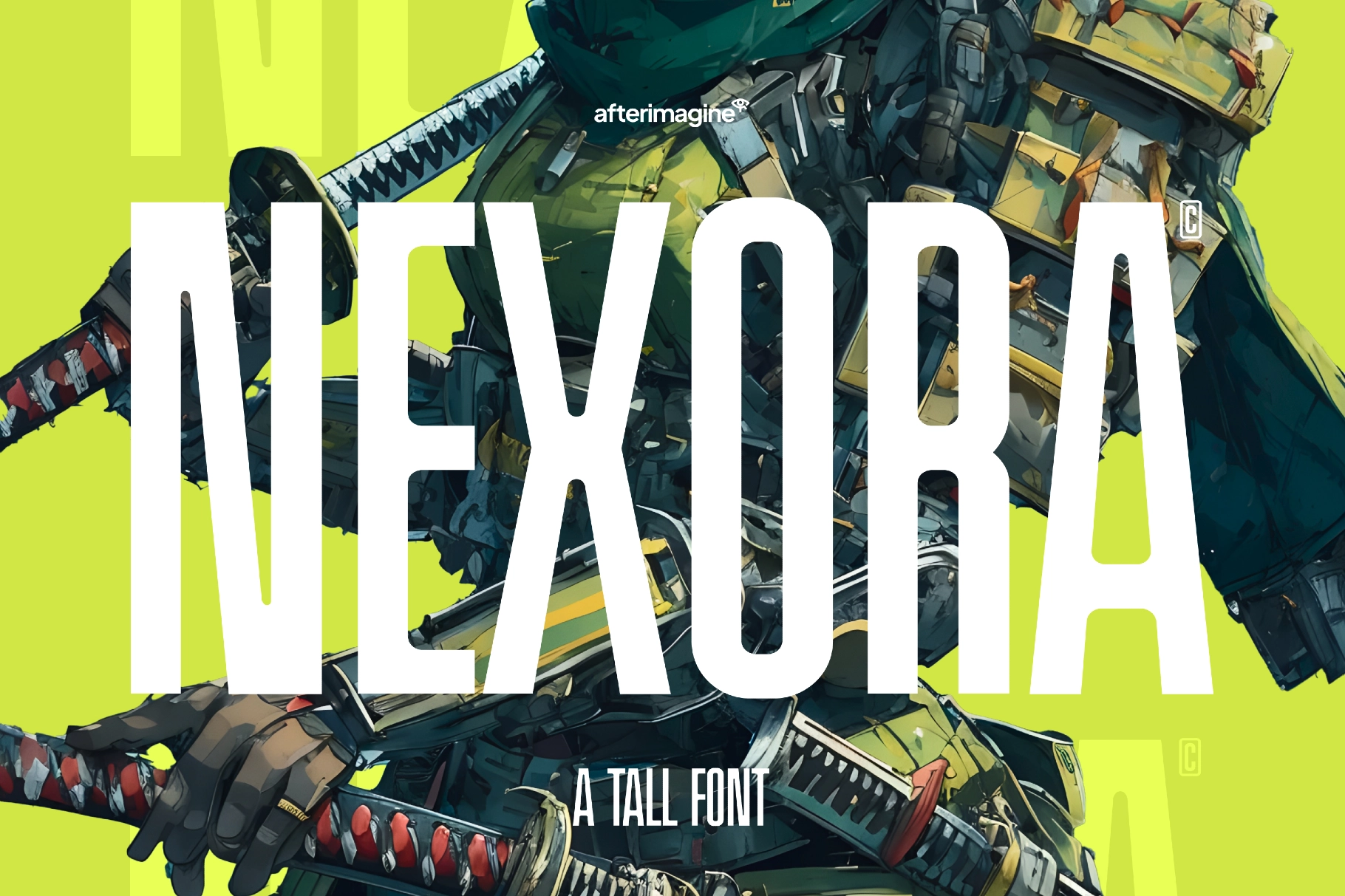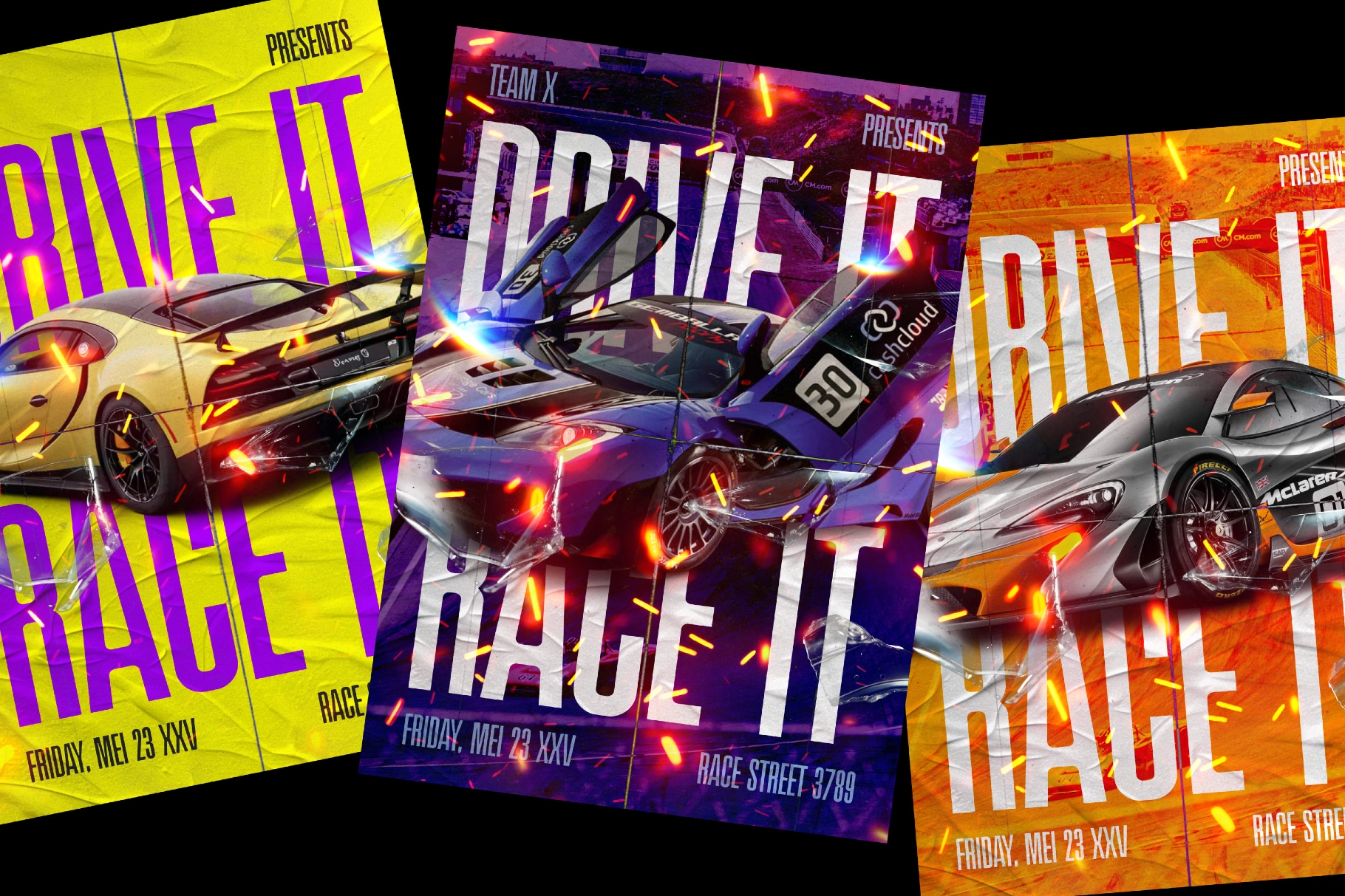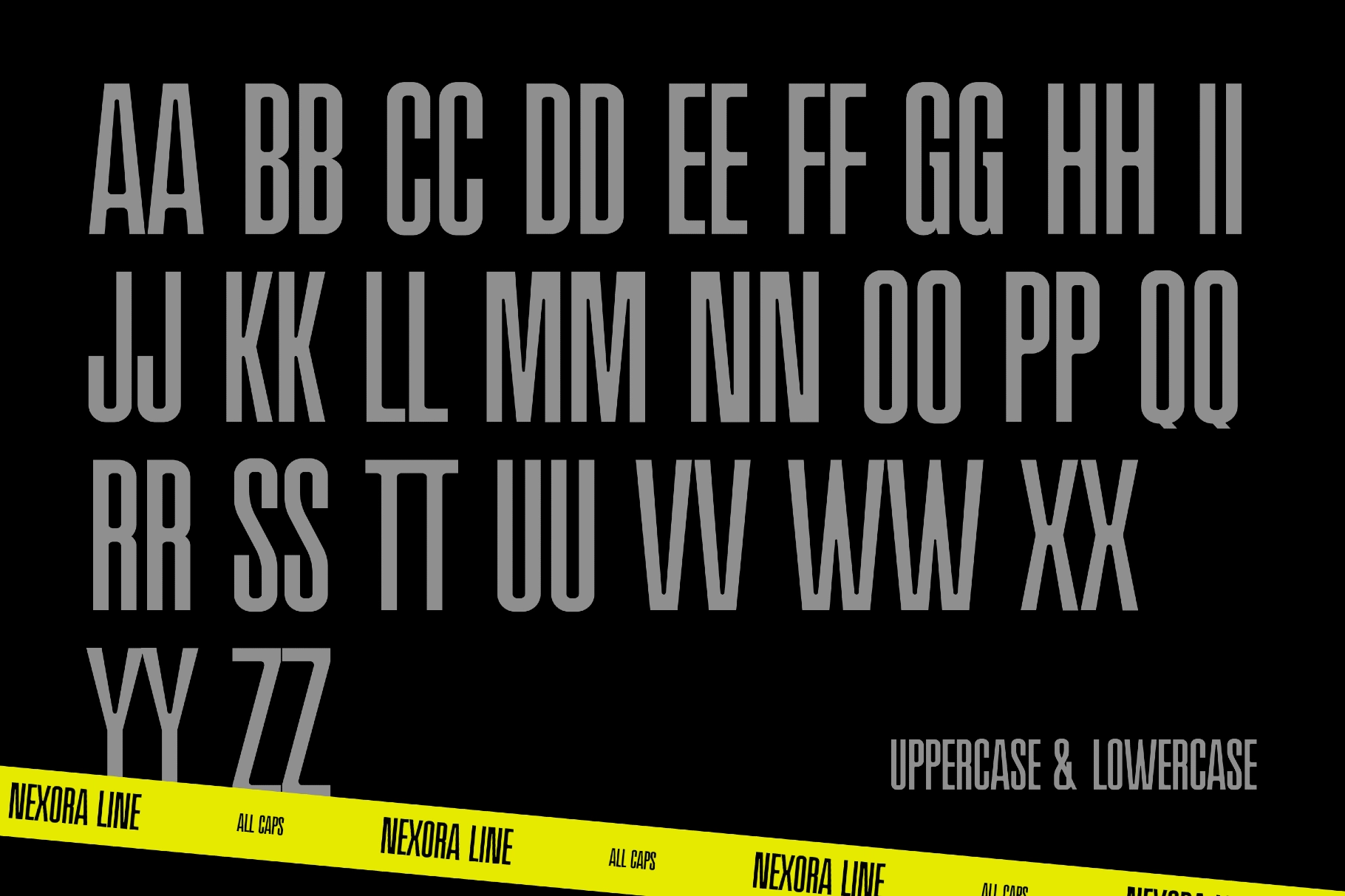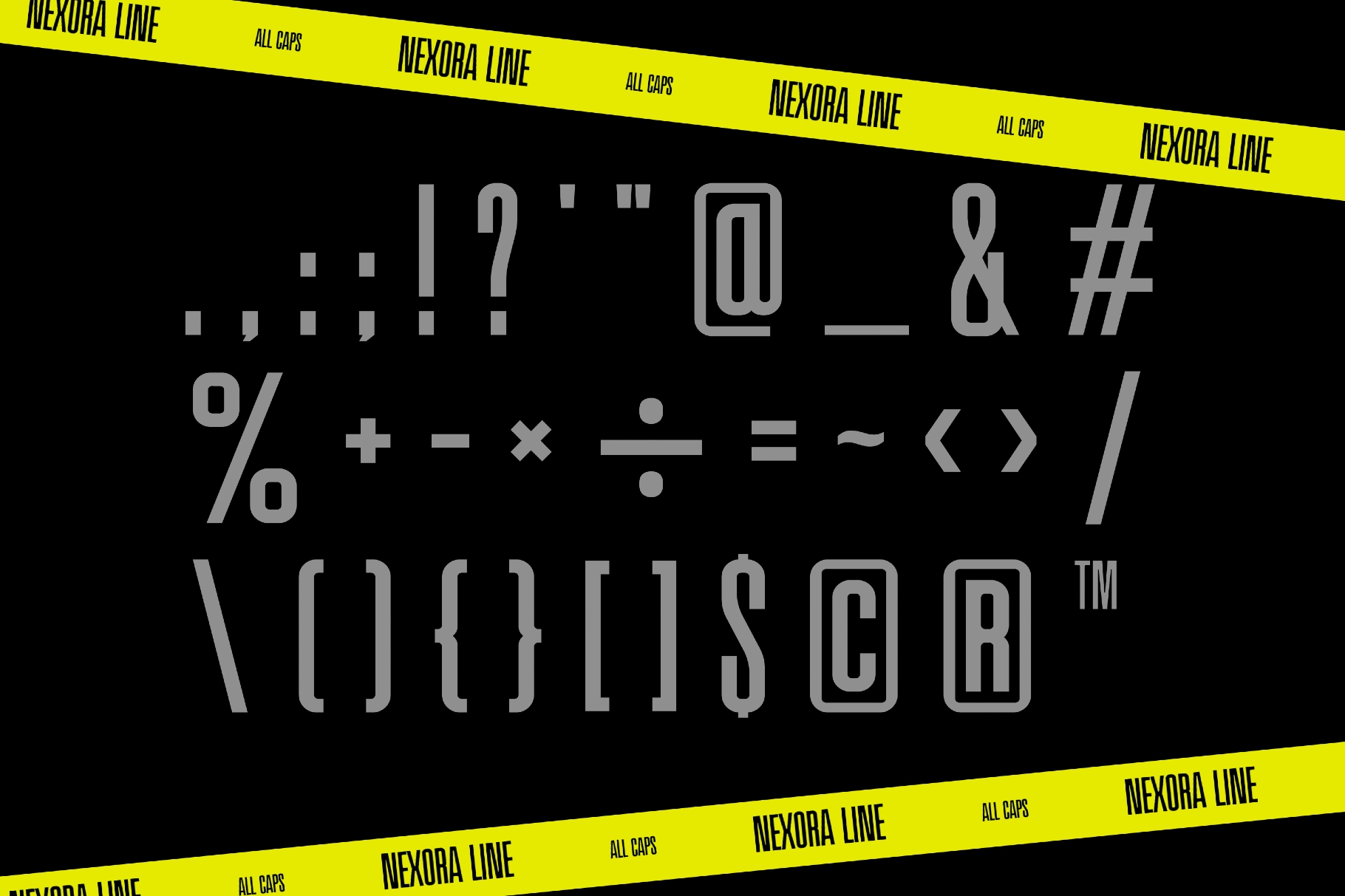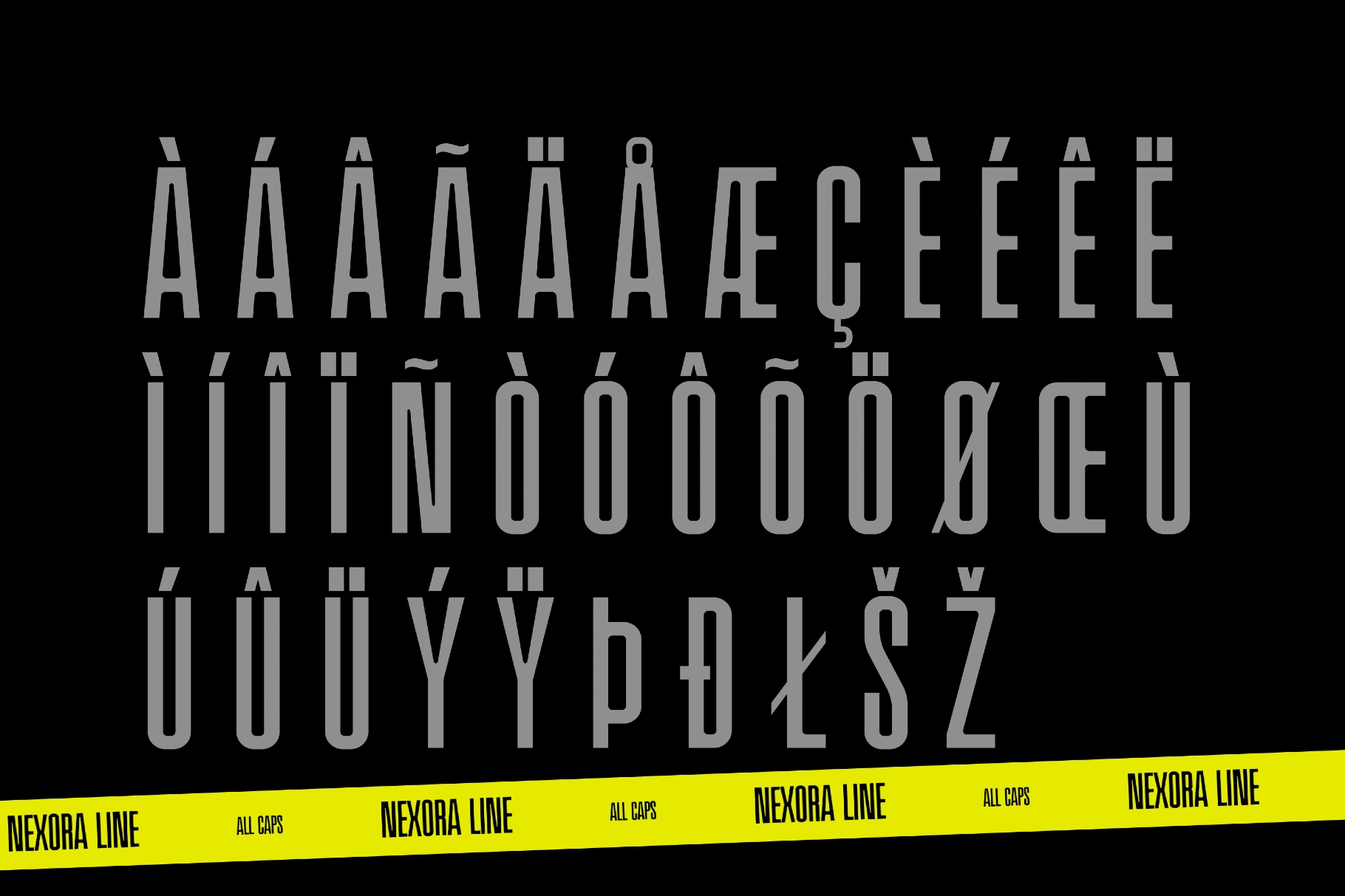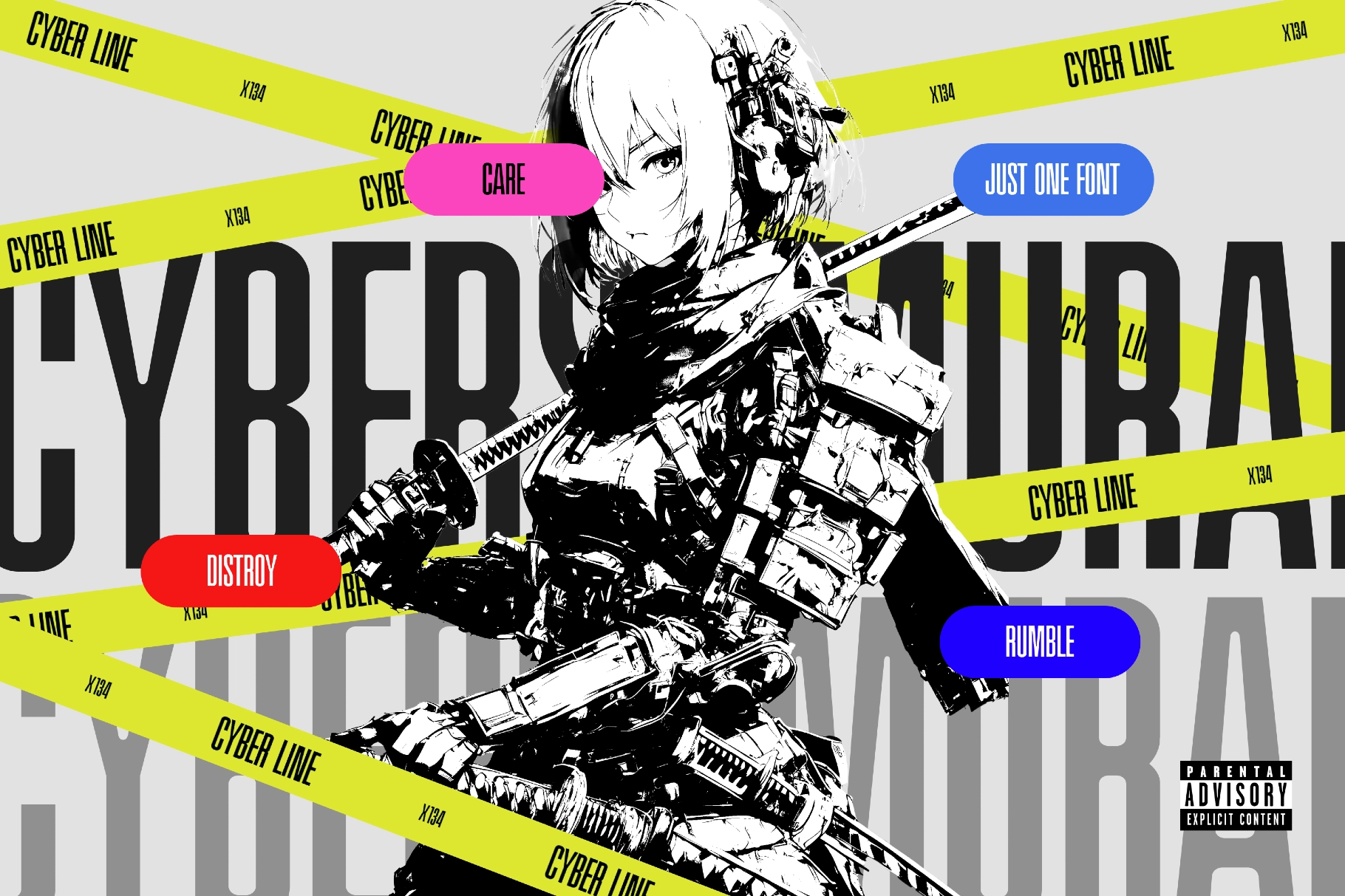
Nexora Tall Font
Nexora Tall Font is a bold, ultra-condensed typeface designed for impactful titles, modern branding, and high-tech aesthetics. Its sharp vertical structure gives any design a strong and futuristic tone, making it perfect for posters, logos, sci-fi visuals, esports graphics, and display headlines. Whether used in digital or print, Nexora brings clarity, strength, and attitude to your typography.